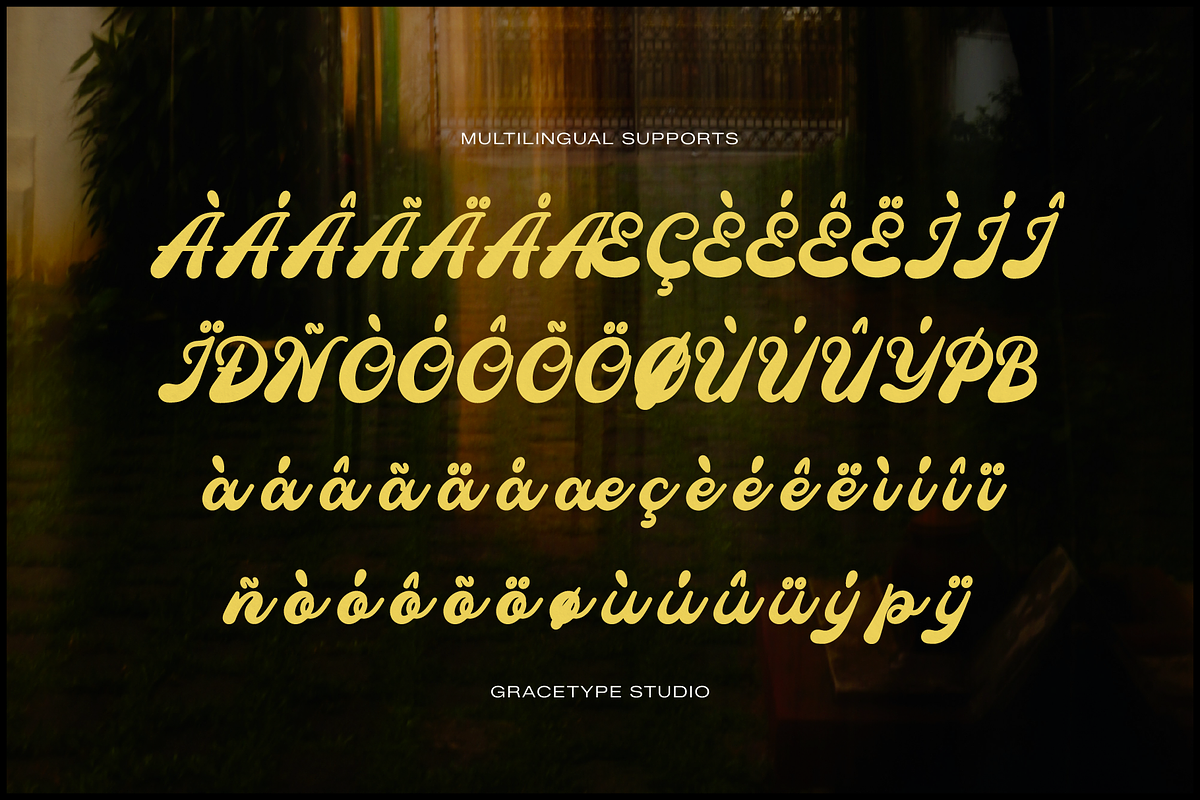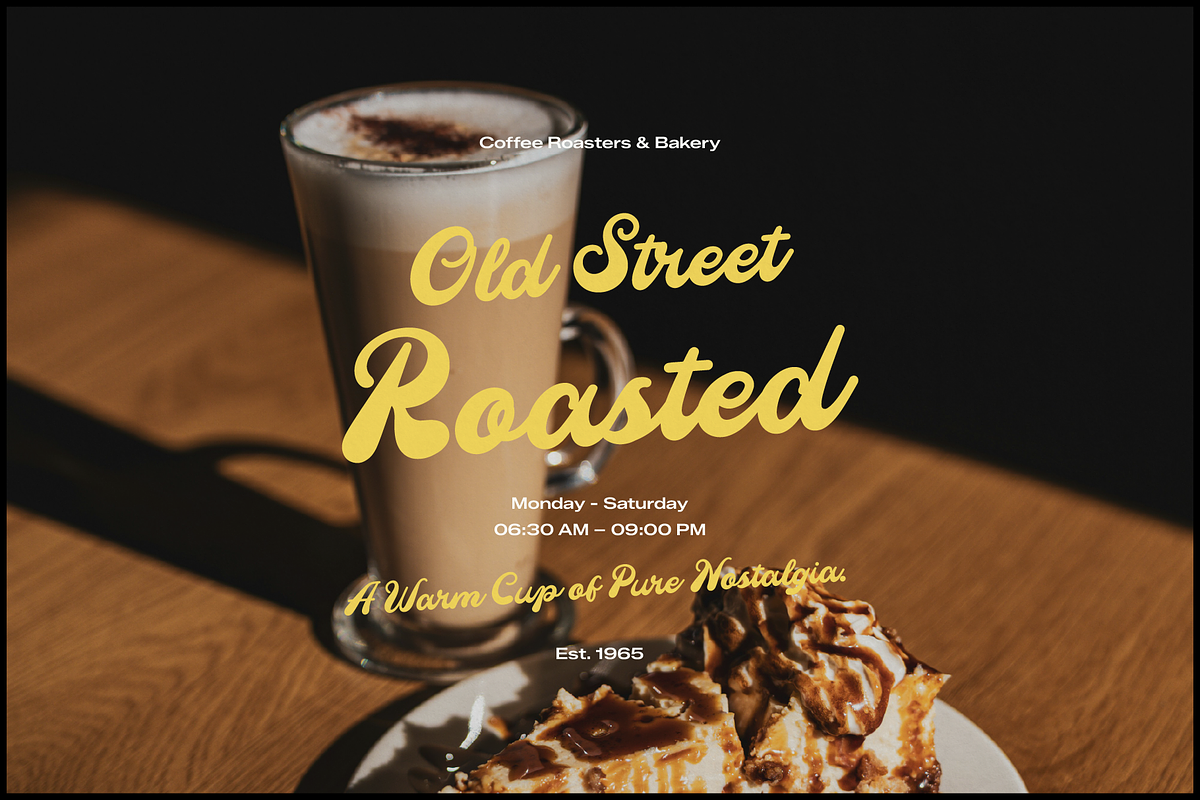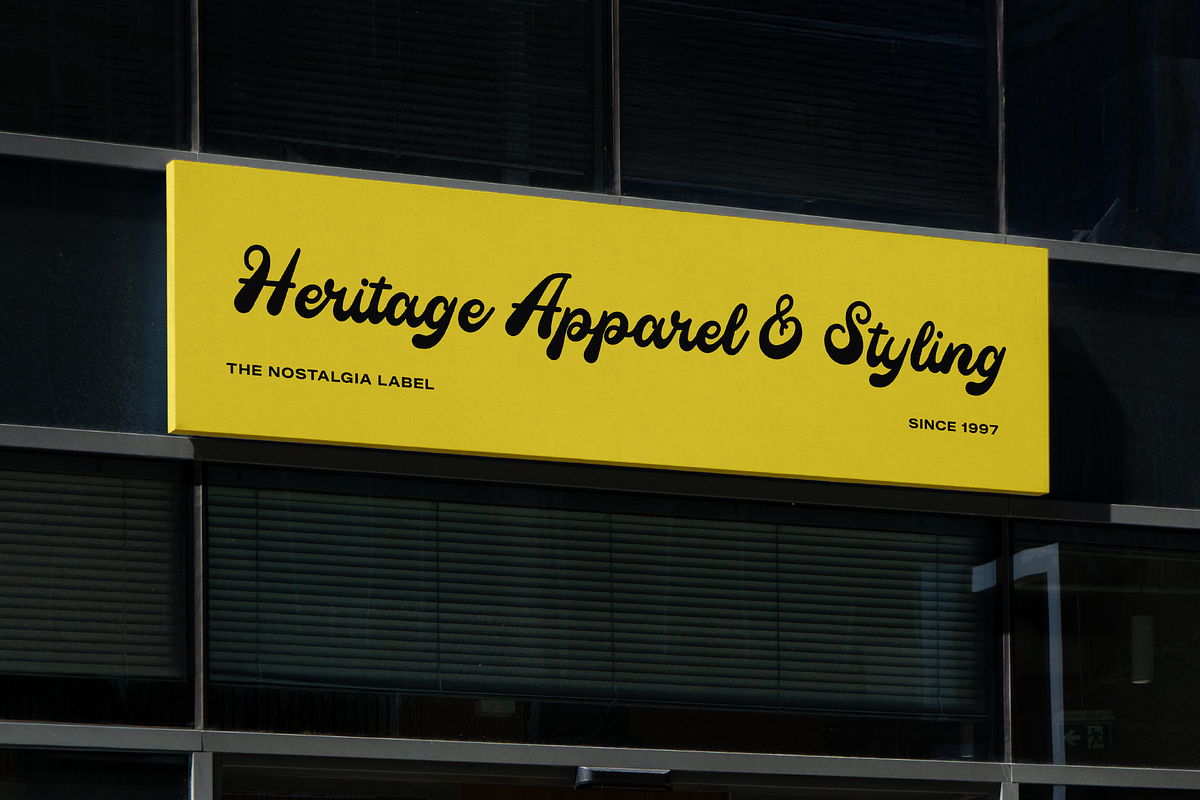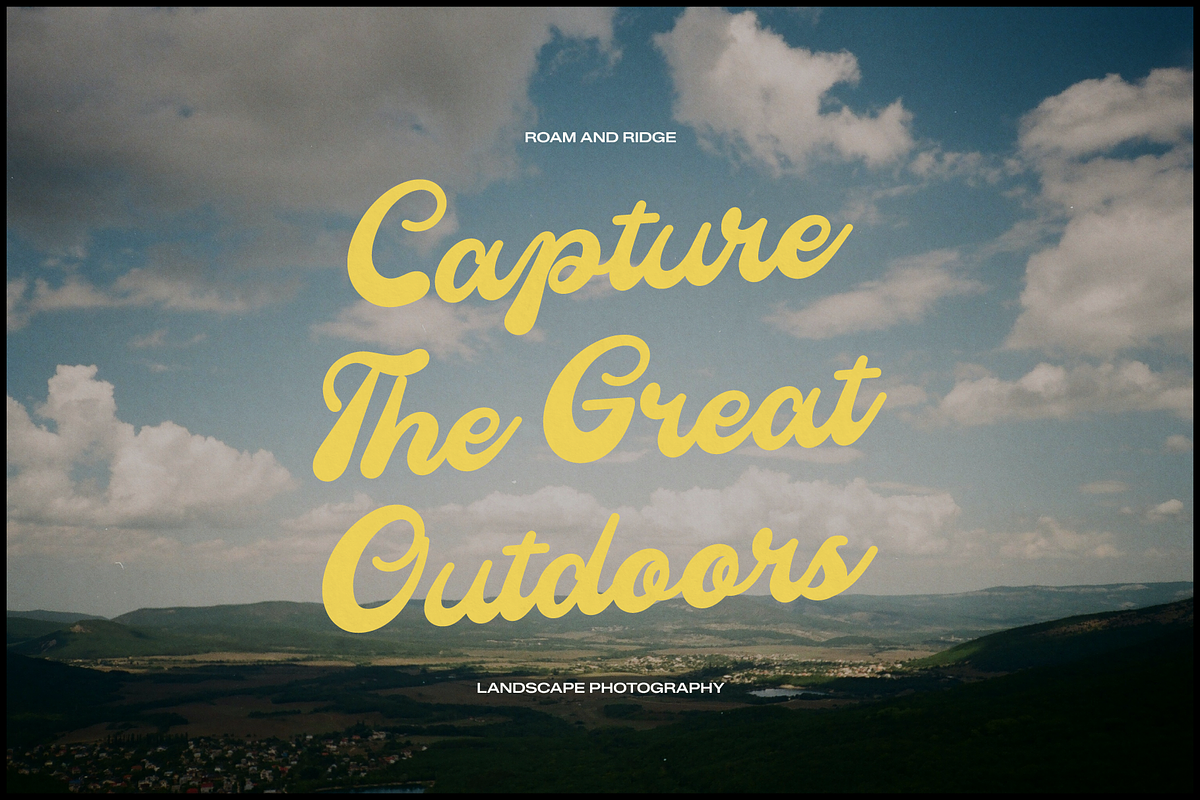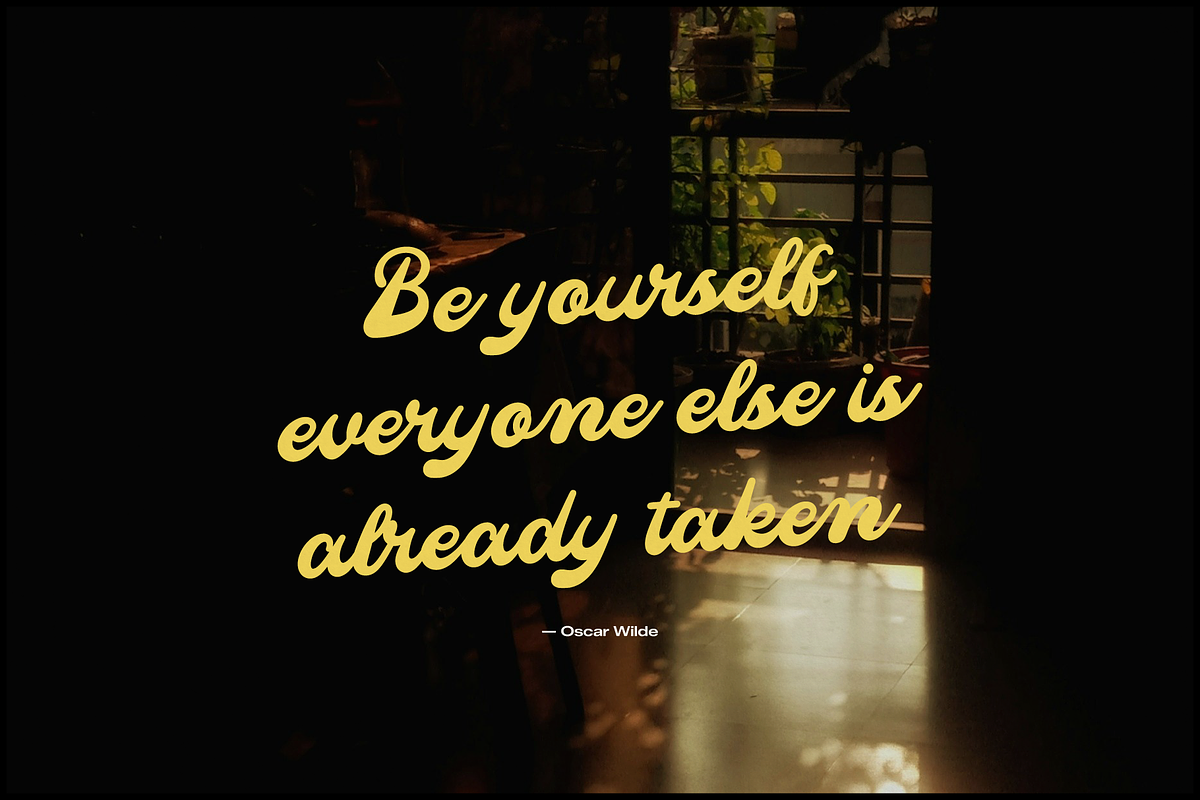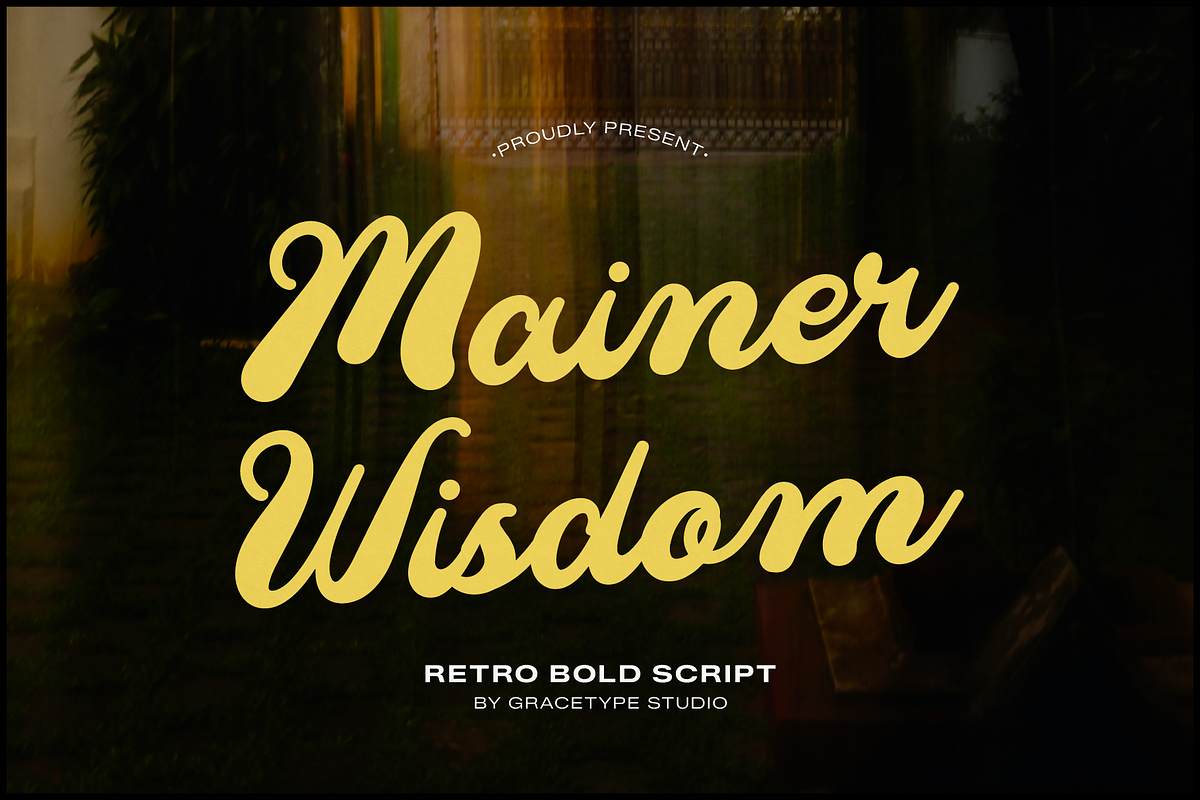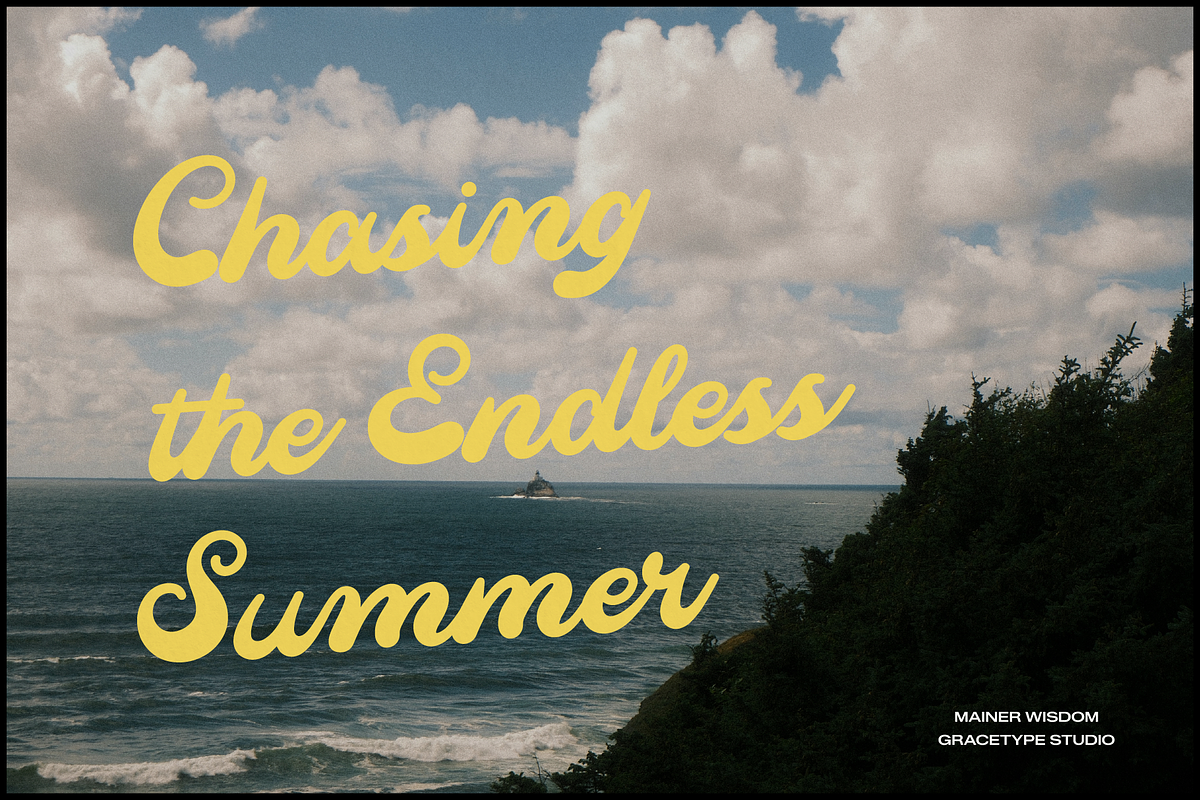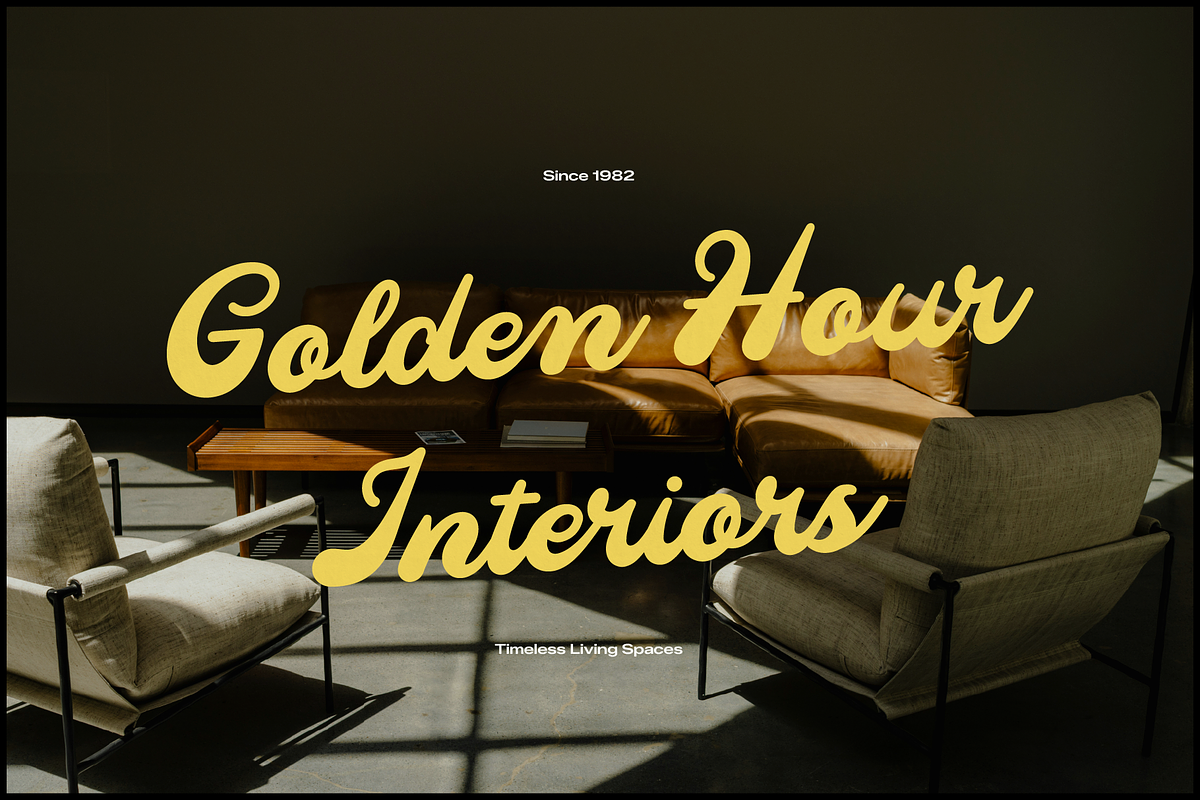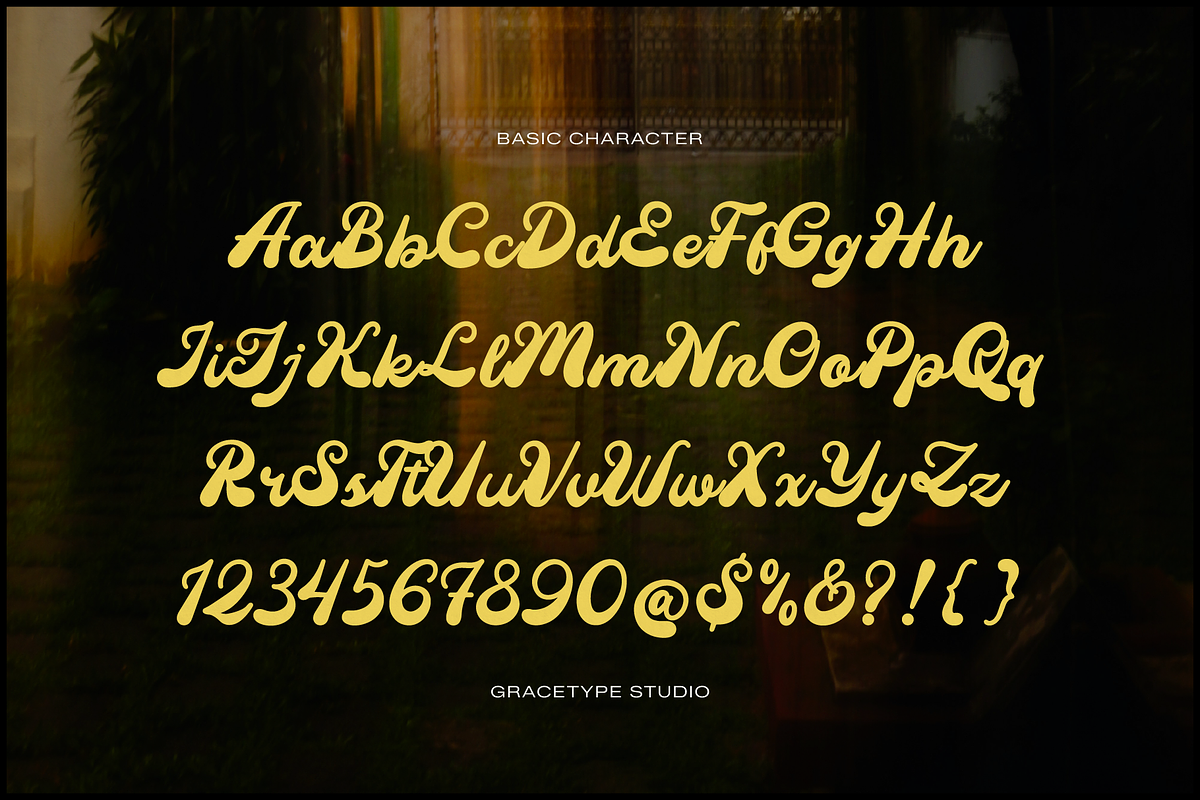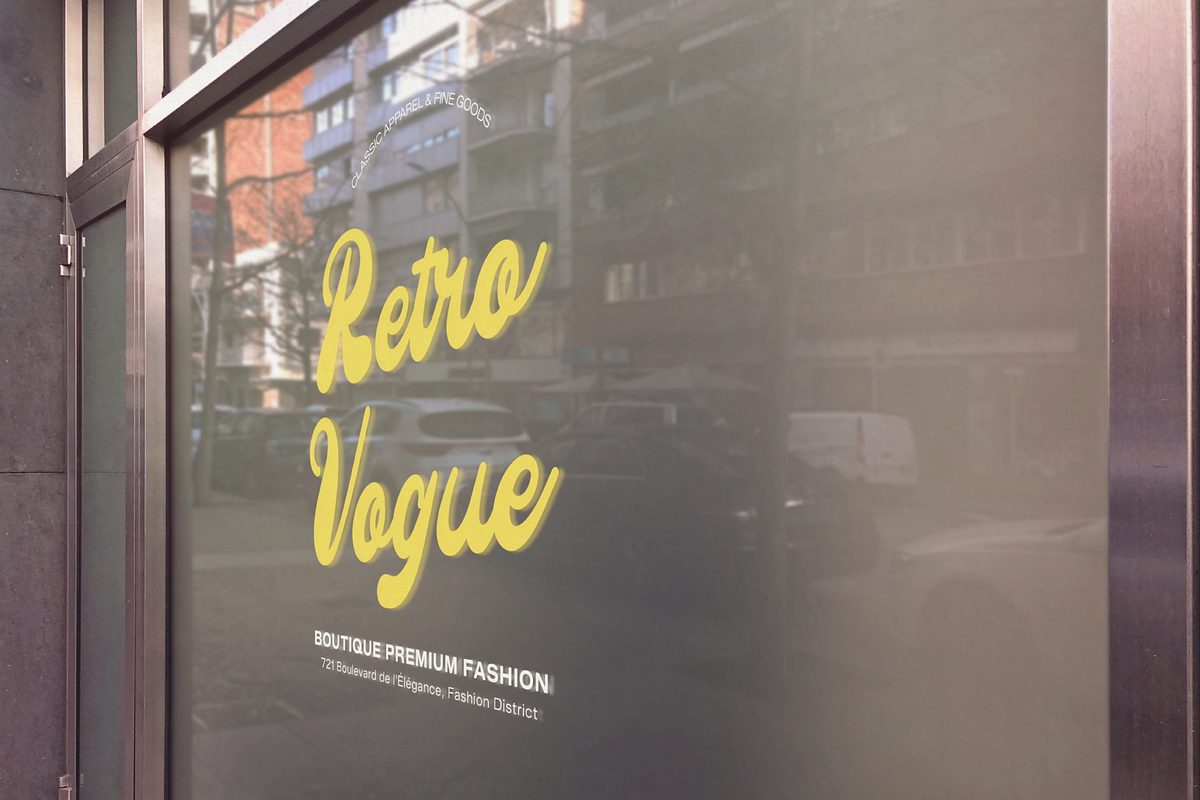
Mainer Wisdom | Retro Bold Script
Mainer Wisdom | Retro Bold Script, from Gracetypestudio, suitable for any projects such as: logos, branding projects, homeware designs, product packaging, mugs, quotes, posters, shopping bags, t-shirts, book covers, name card, invitation cards, greeting cards, label, photography, watermark, special events, and all your other lovely projects that need a Script taste.
Alternate and Ligature
Fonts include multilingual support